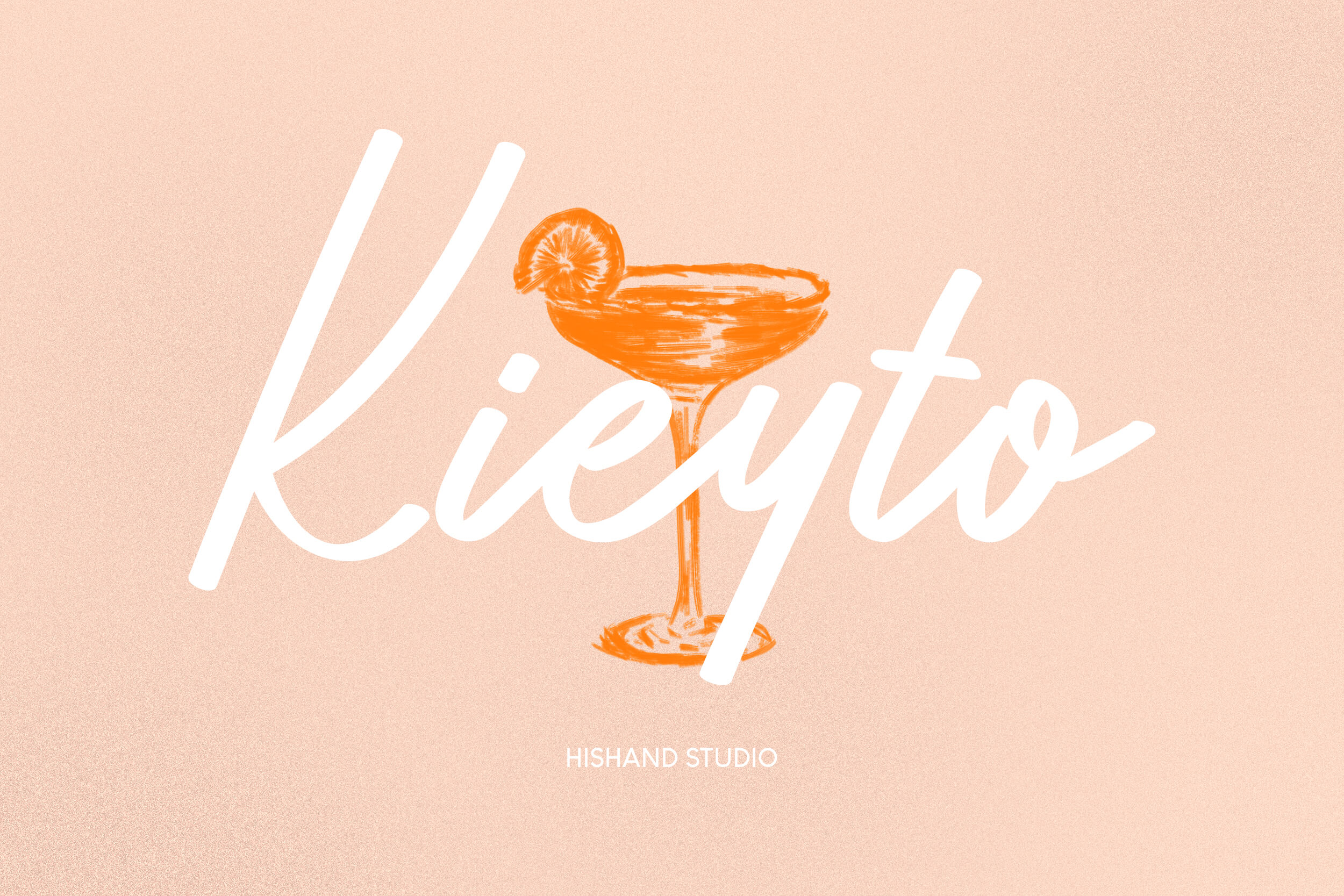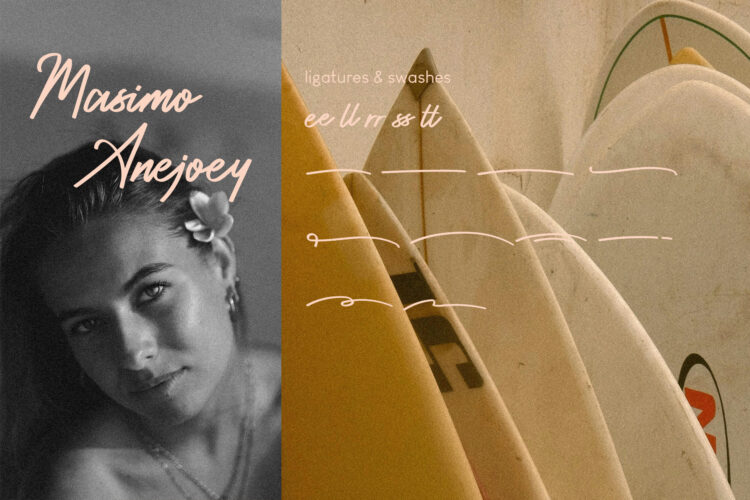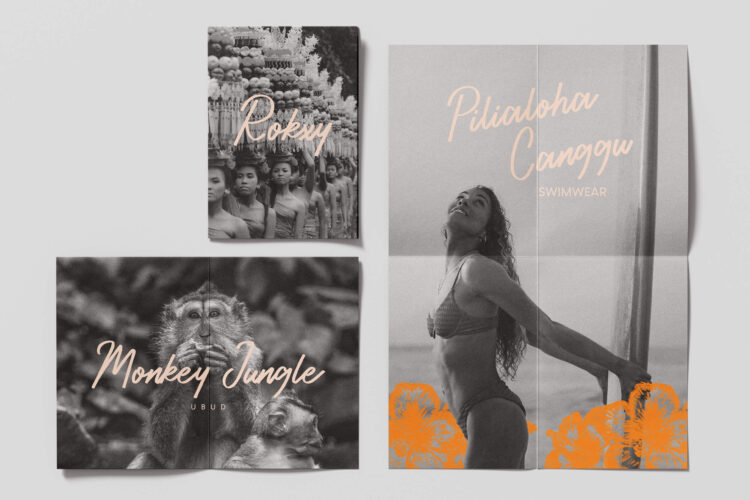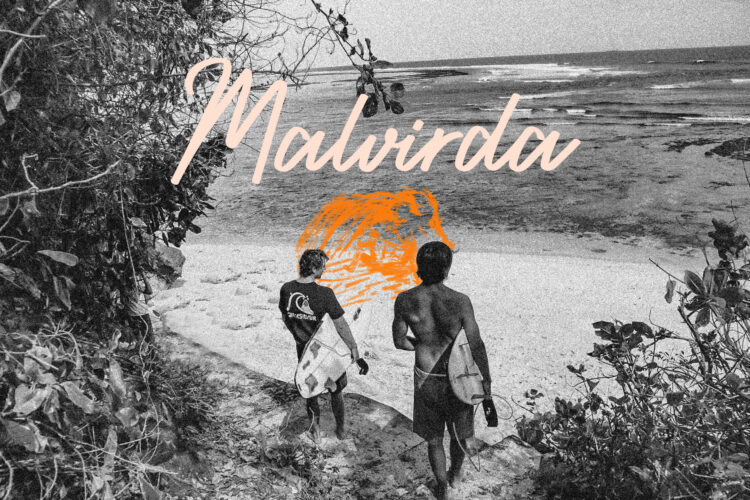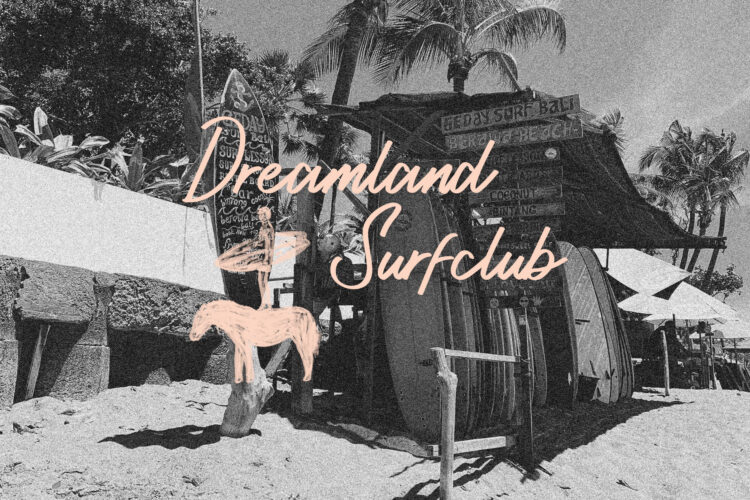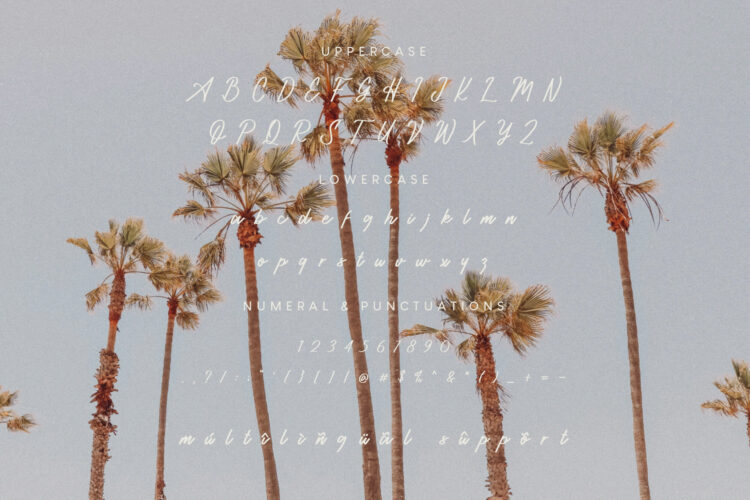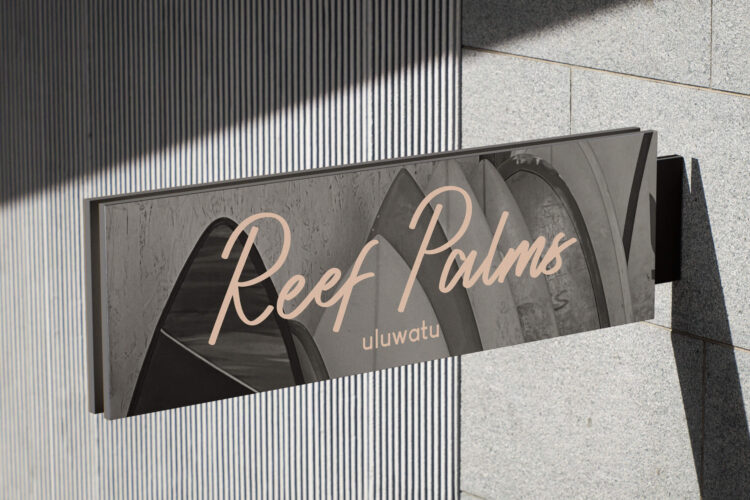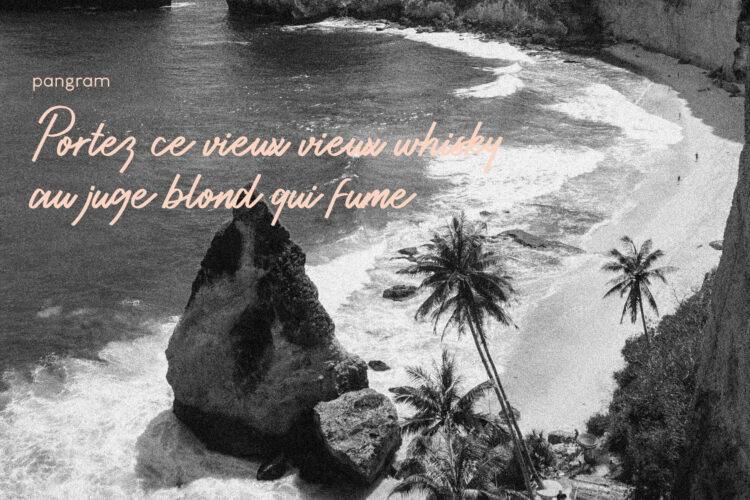
Kieyto Font
Kieyto is a handwritten script font with a relaxed and expressive style inspired by natural brush lettering. It is designed to reflect the flow and movement of hand-drawn strokes, resulting in letterforms that feel organic and visually engaging. The smooth lines and gentle curves create a sense of ease, giving the typeface a warm and approachable character that works well across a wide range of creative projects. Rather than appearing strict or mechanical, Kieyto carries a natural rhythm that feels balanced and intentional.
The font features subtle irregularities in each letter, which contribute to its handcrafted appearance. These small variations help the typeface feel authentic and human, avoiding an overly polished or digital look. This quality makes Kieyto particularly suitable for designs that aim to communicate sincerity, creativity, and a personal touch without sacrificing clarity. Despite its informal nature, the structure of the letters remains consistent, ensuring the text stays readable in both short phrases and prominent display use.
Kieyto’s letterforms are bold yet soft, combining confident strokes with smooth transitions between characters. The fluid connections enhance the overall flow of words, allowing text to feel cohesive and visually pleasing. Its casual tone is balanced by thoughtful proportions, making it versatile enough for modern design needs. When paired with clean layouts and soft or neutral color palettes, Kieyto can stand out without overwhelming other design elements.
This font is well suited for café and restaurant branding, drink and food labels, menus, packaging, posters, and social media content. It also performs well in logo design, especially for brands that want to project a friendly, creative, and contemporary image. Used in headlines or short statements, Kieyto adds emphasis while maintaining a relaxed and inviting mood.
Overall, Kieyto is a versatile script font that brings personality and charm to a wide variety of visual designs. It is ideal for projects that benefit from a casual, hand-drawn aesthetic while still requiring a refined and well-balanced appearance.
Complete with
• uppercase
• lowercase
• ligatures
• swashes
• multilingual support